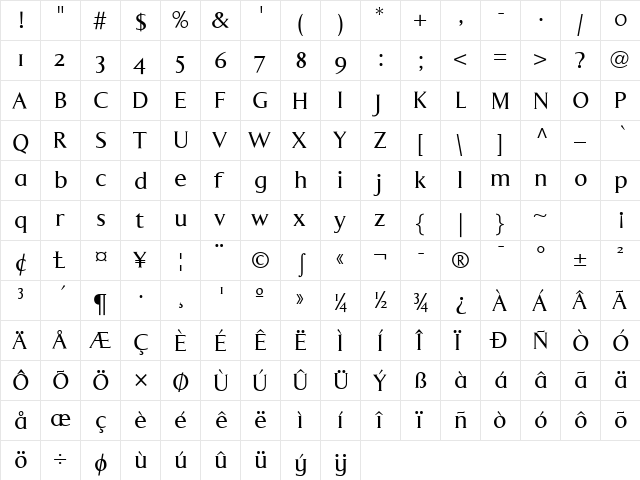
LuMarcLL Regular
Design Context for LuMarcLL Typeface
LuMarcLL offers clean, dependable letterforms without strong stylistic allegiance, making it a practical choice for designers who need flexibility.
Pro Tip: Pair LuMarcLL with a font of contrasting weight or personality to build a more expressive typographic hierarchy.